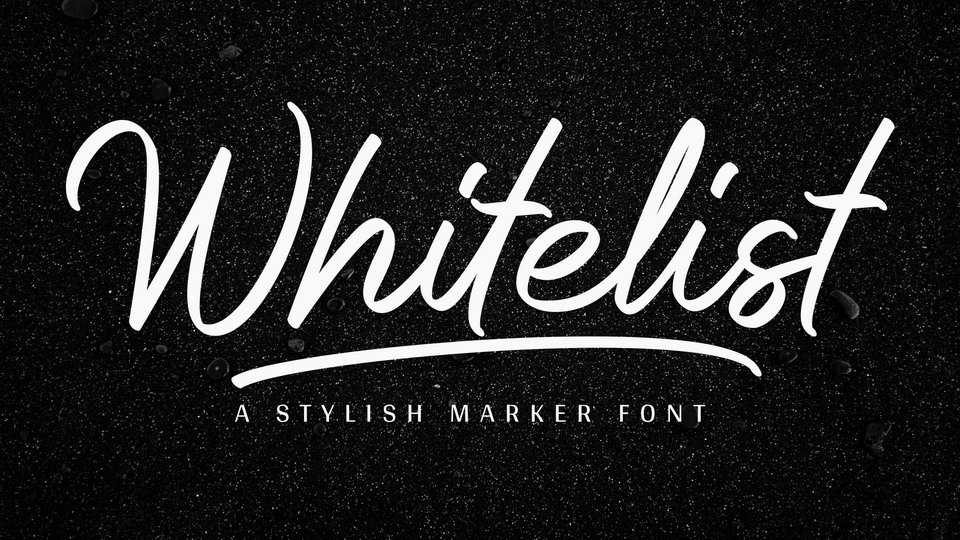
Download Whitelist font, a stylish and elegant marker script designed to keep a naturally handwritten marker-style look. Good choice for watermarks on photography, apparel, website, t-shirt and more.
Designer: Sibelumpagi Studio